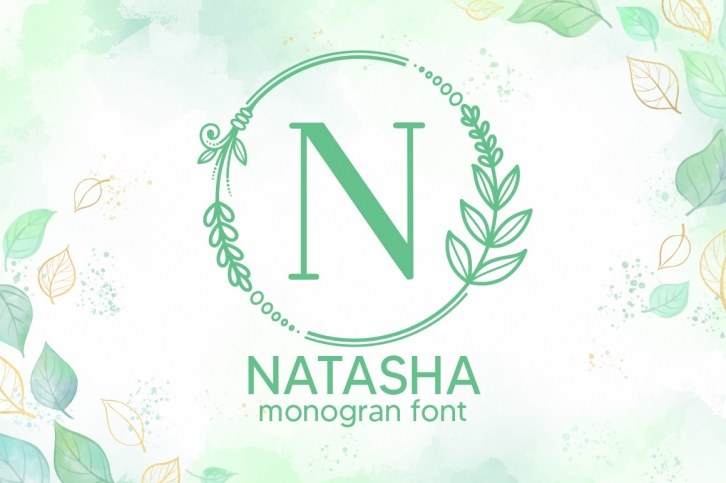
Nathasa Monogram is a lovely, delicate and authentic decorative font.
Use it for a wide range of design occasions such as logos, apparel, photography, watermarks, quotes, blog headers, posters, weddings, invitations, stationery, branding, and much more.